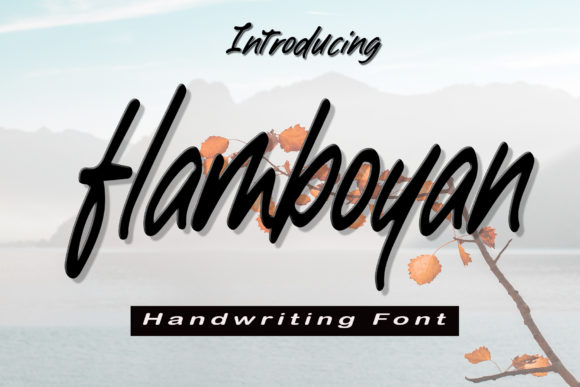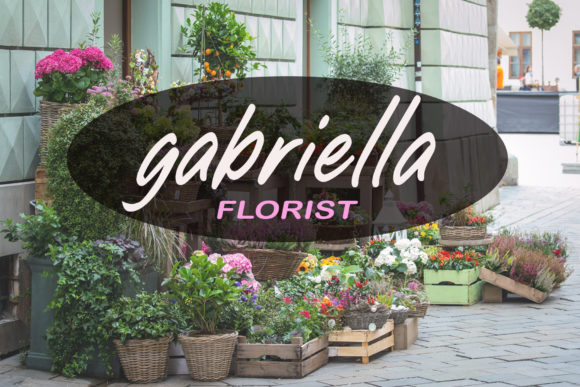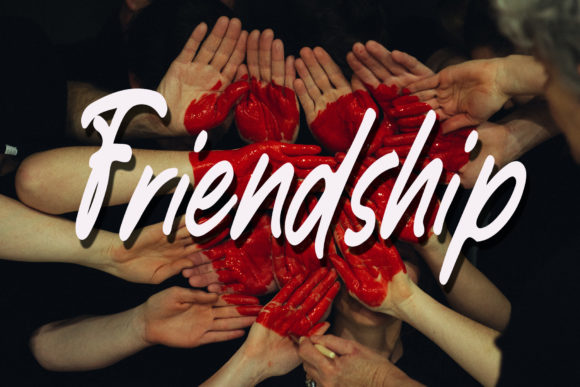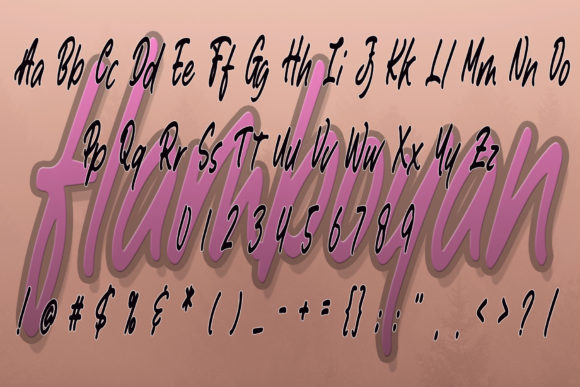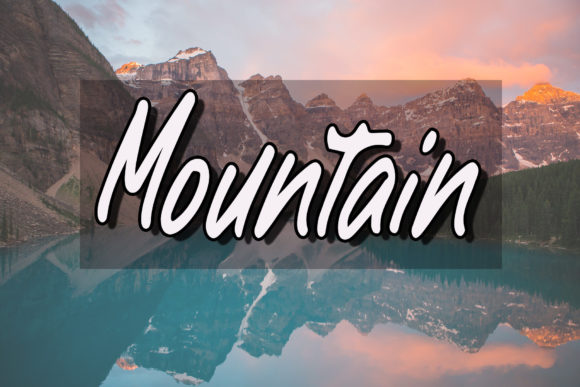
Flamboyan Font
About Flamboyan Font
Flamboyan is a lovely and cursive script font that exudes elegance and class. This font was particularly crafted for those who need a beautiful and refreshing look to their designs.